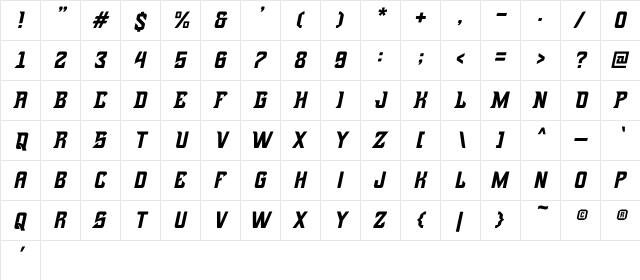
Brutals Tilted Regular Font Preview
Brutals Tilted Regular
Design Context for Brutals Tilted Typeface
Brutals Tilted is a composed and adaptable typeface that performs quietly and consistently across a wide range of design contexts.